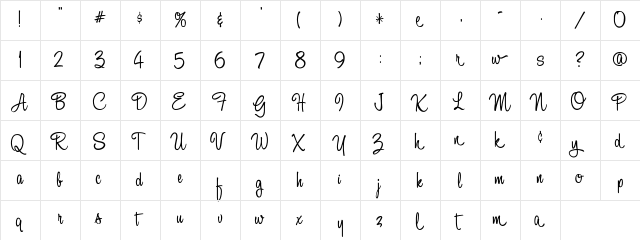
A&S Black Swan Regular
| Foundry | SIGNFONTS-Art&Sign studio |
| Designer | Steve Contreras |
Design Context for A&S Black Swan Typeface
A&S Black Swan is a composed and adaptable typeface that performs quietly and consistently across a wide range of design contexts.
Pro Tip: Use A&S Black Swan in both headline and body roles to test its range before committing to a single application.